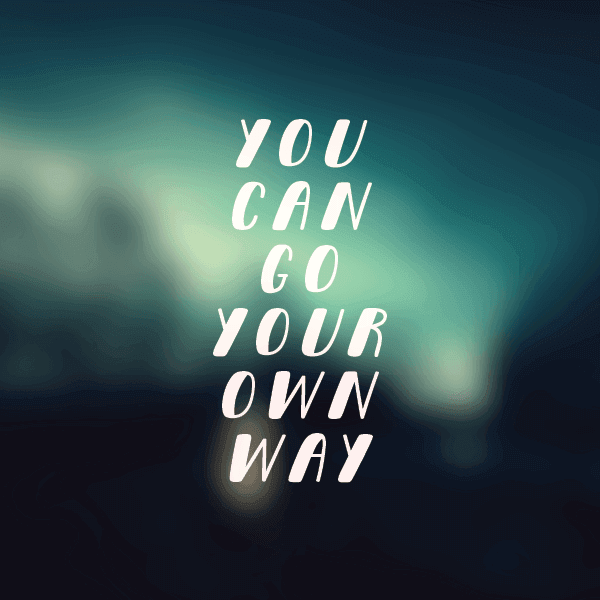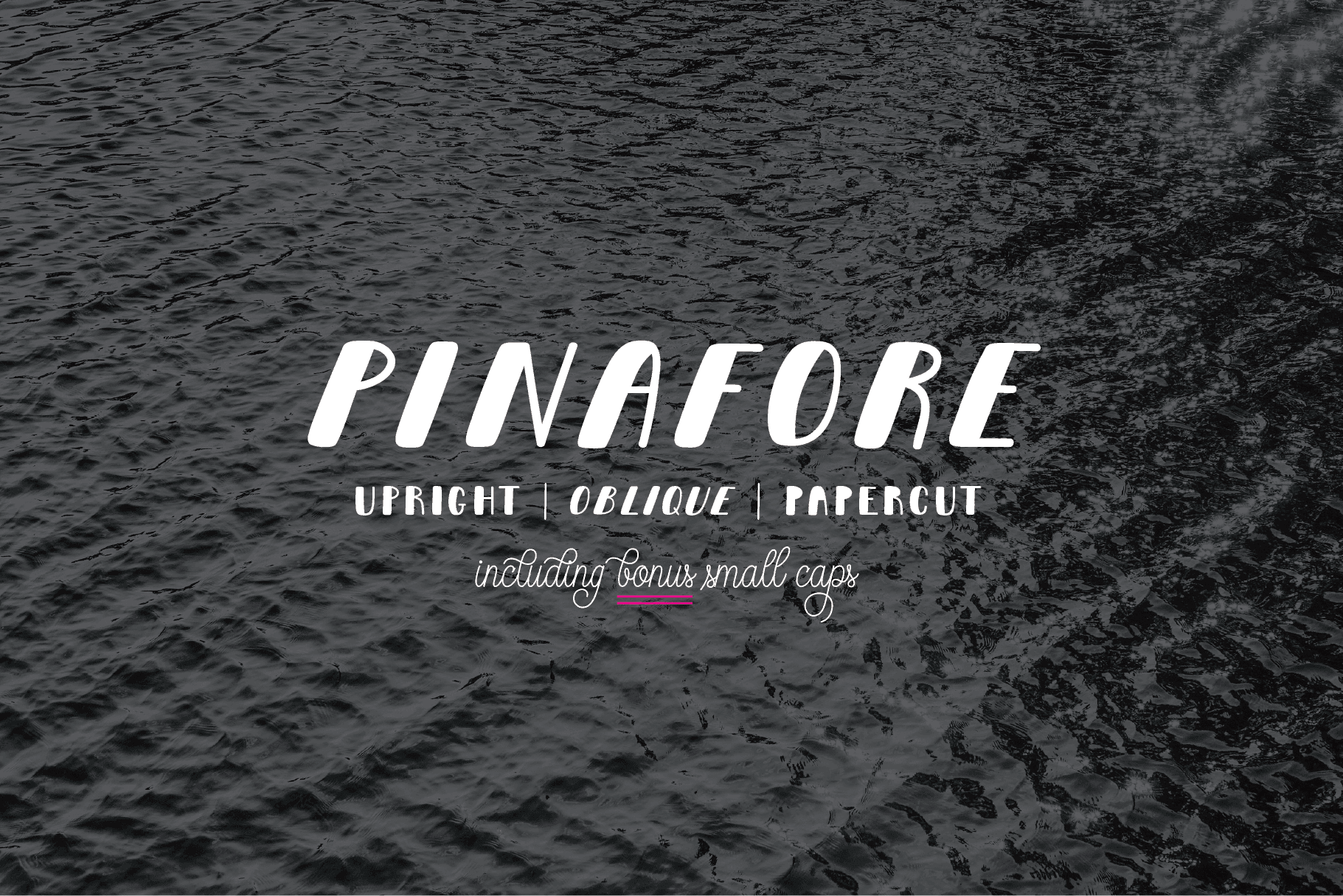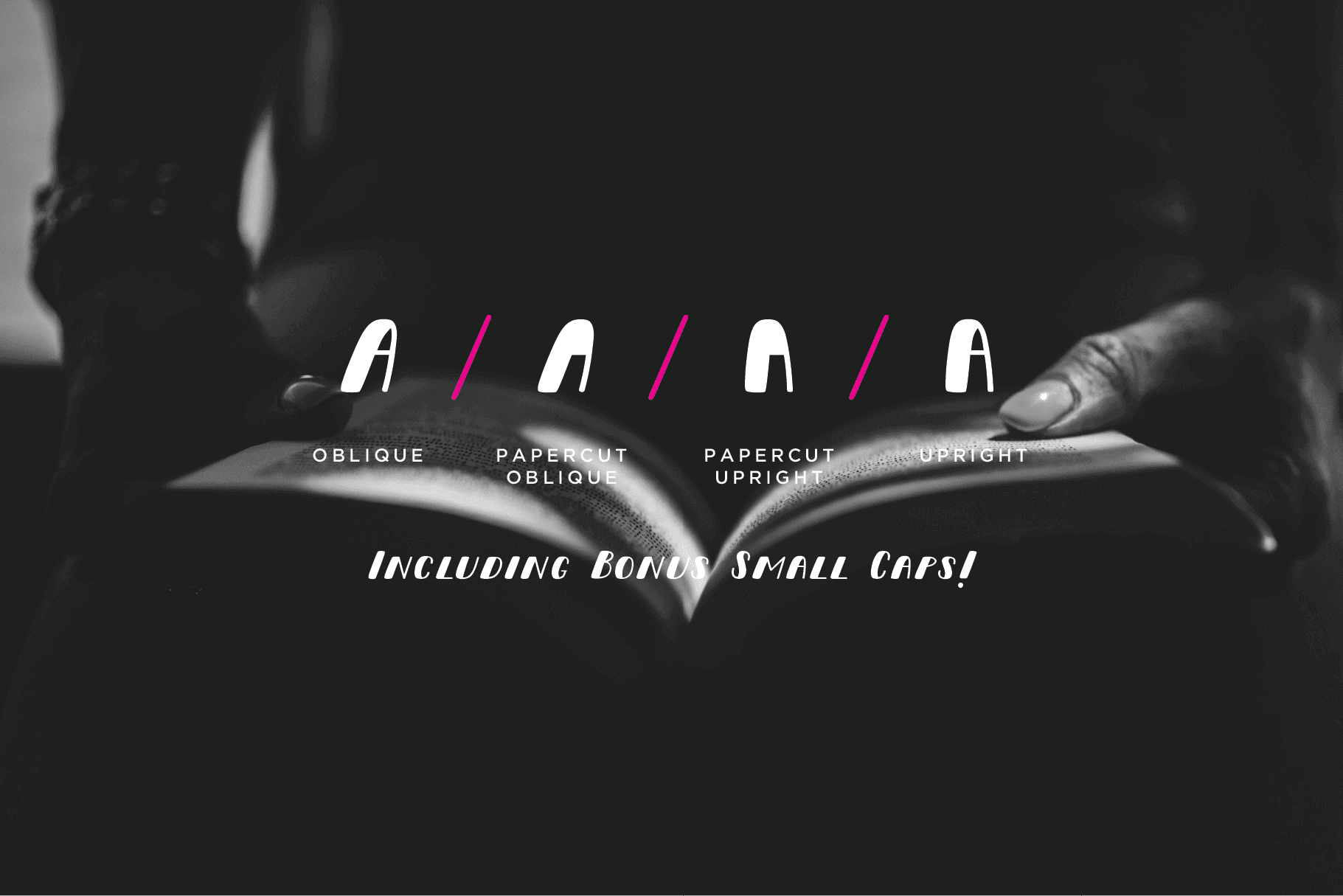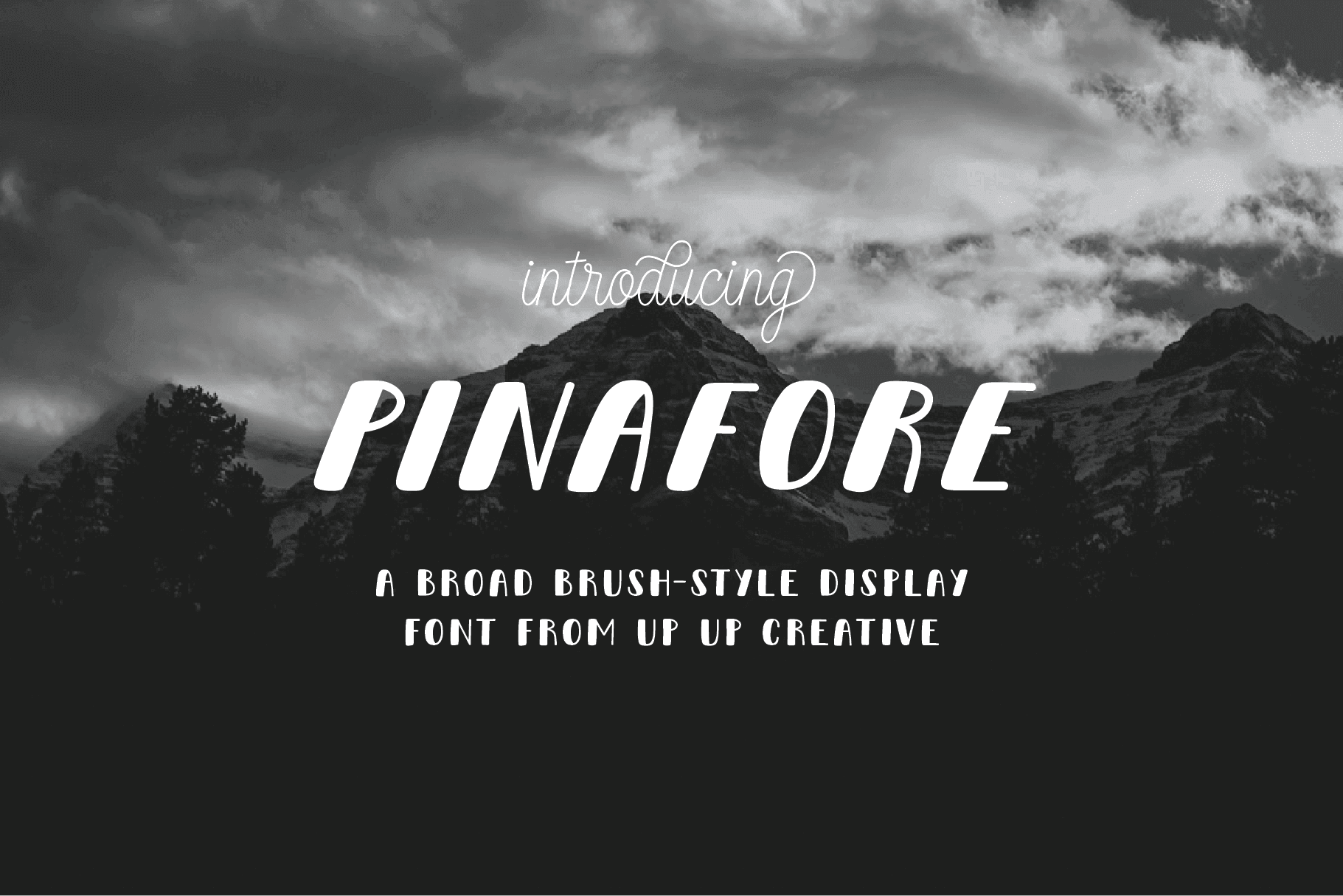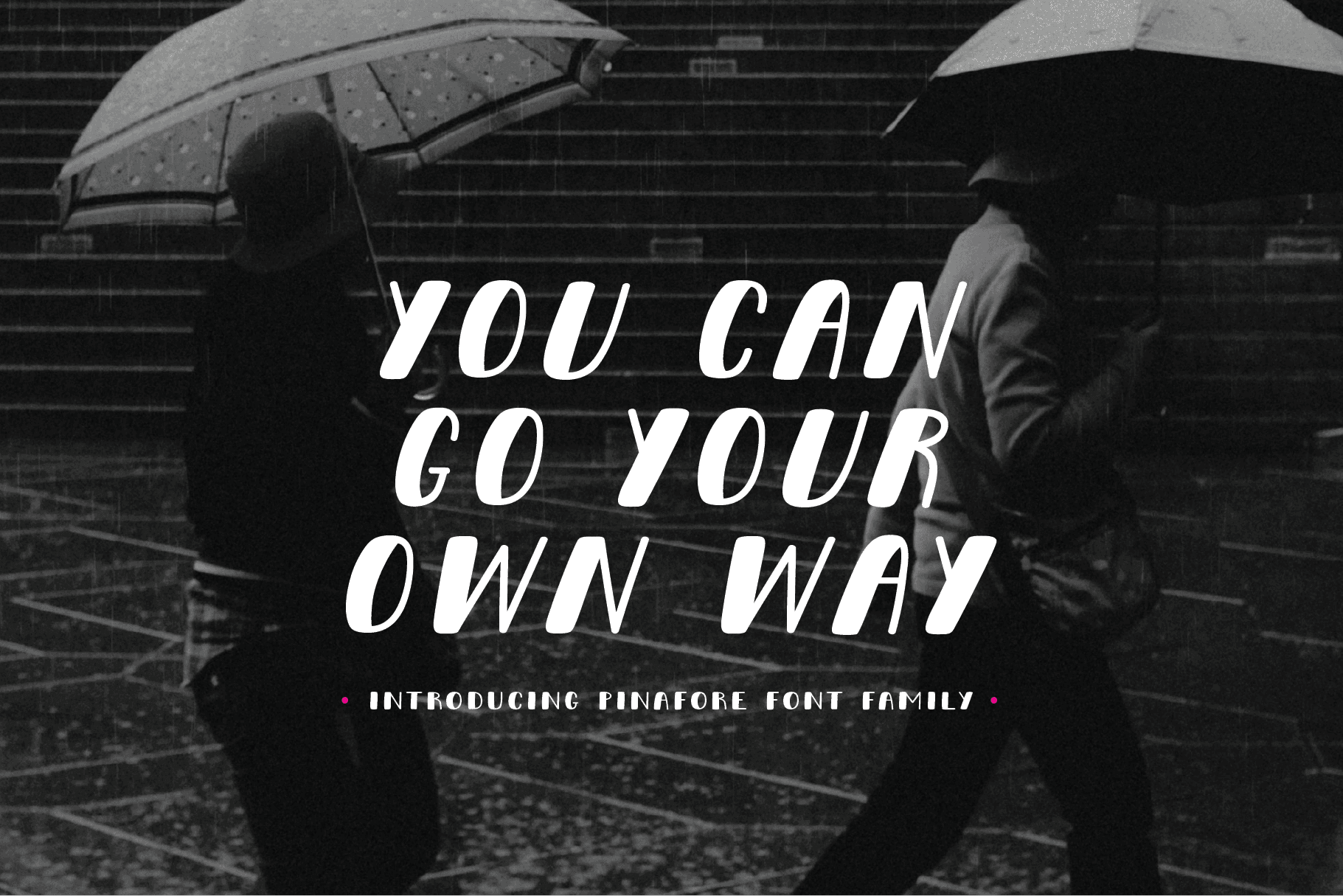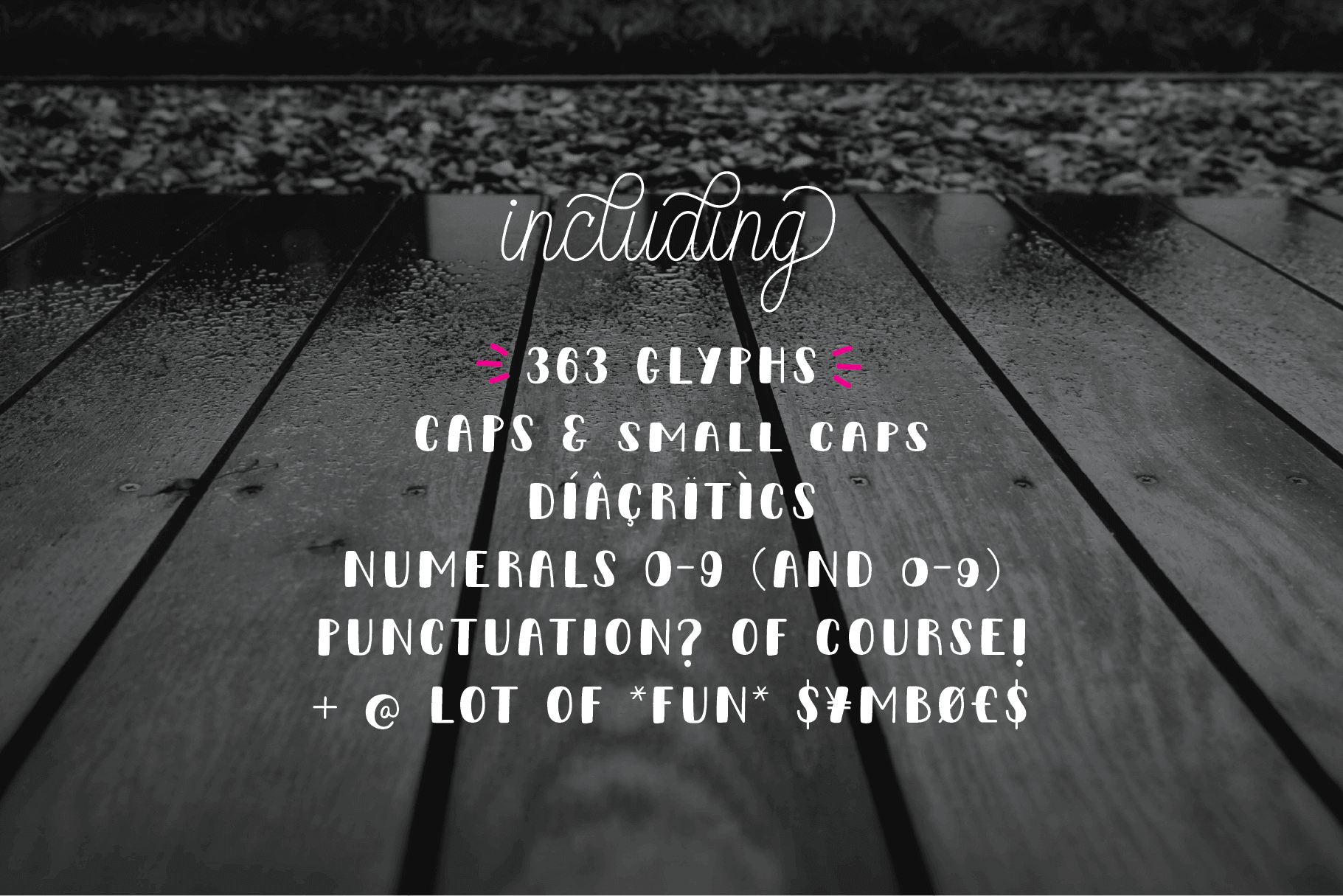
Pinafore Sans Serif Font Family
Pinafore Sans is a fun sans serif font family with upright and oblique styles as well as paper cut versions of each. It includes small caps (see note below for more on this), multilingual support (including multiple currency symbols), an awesome ampersand, math symbols, and more.
- localized forms (multi-language and multi-currency support)
- small capitals (a.k.a. small caps) ** A note about small caps: There are TWO ways to access the small caps in this font family. For OpenType-savvy programs such as Adobe Illustrator and Adobe InDesign, these can be accessed from within the main font files using the character panel or the glyphs panel. For programs that do not access these OpenType features, I have also included small-caps-specific font files. In these files, the regular caps are accessed by typing capital letters and the small caps are accessed by typing lowercase letters.
- Released in 2015
- Includes 725 glyphs
- 8 Styles, 1 weight